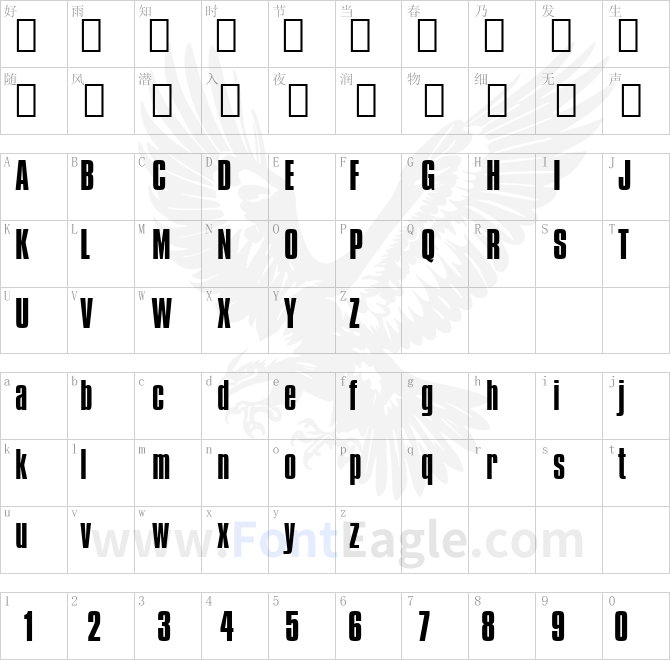
Compacta BT Roman.ttf Font Image
Compacta BT Roman.ttf Base Font Information
- Font name:Compacta BT
- Font Subfamily ID:Compacta, Swiss 930
- Font Full Name:Compacta BT
Compacta BT Roman.ttf Characters Sample